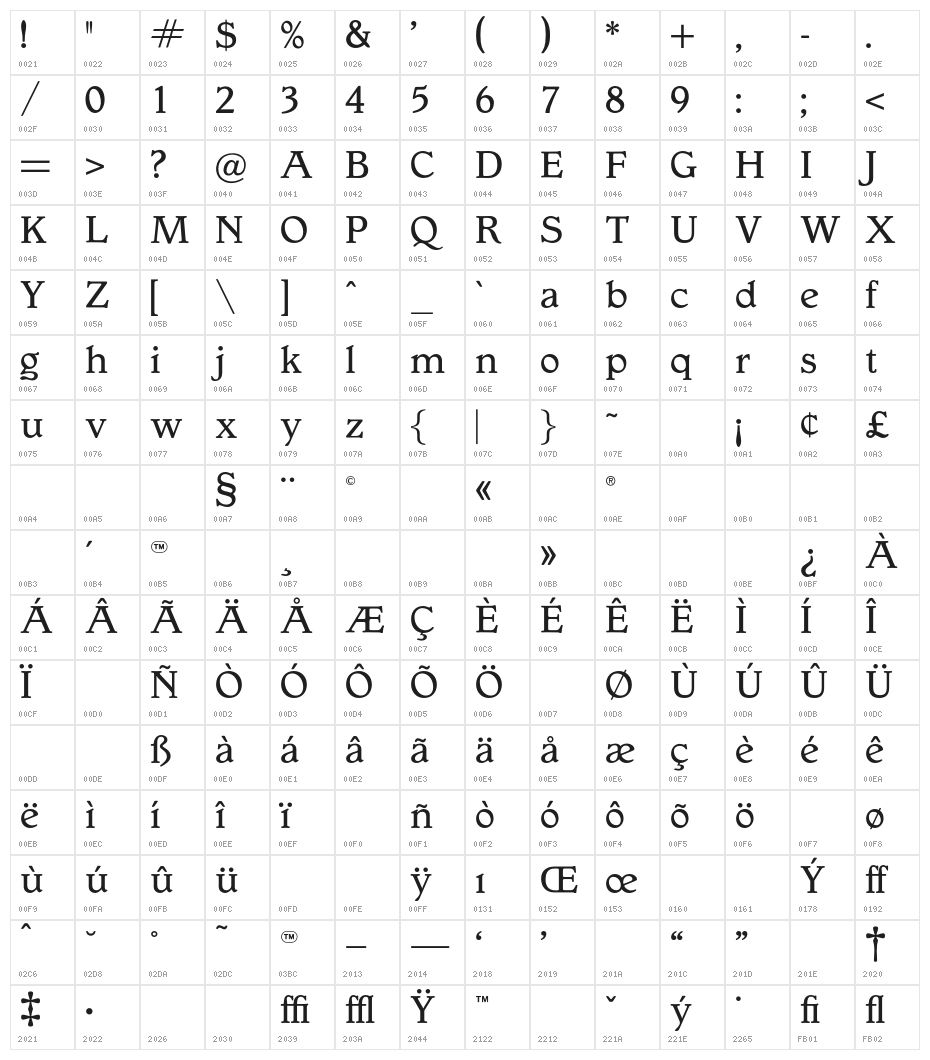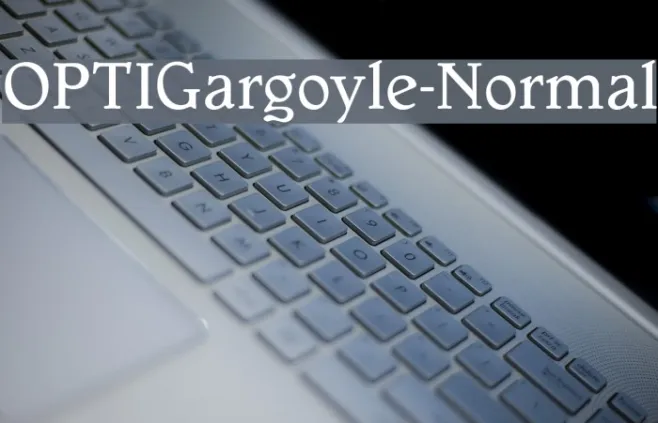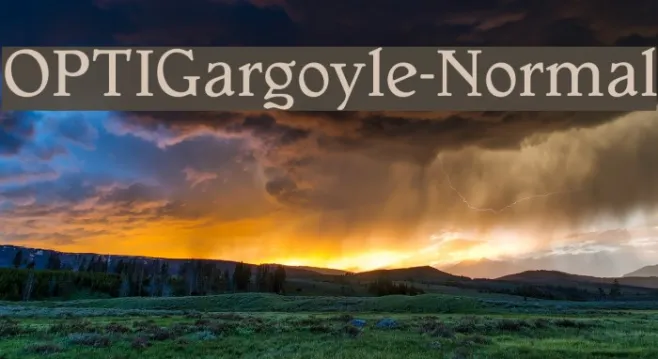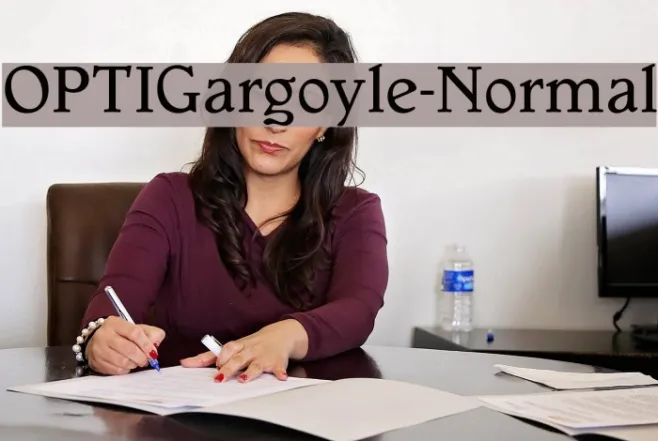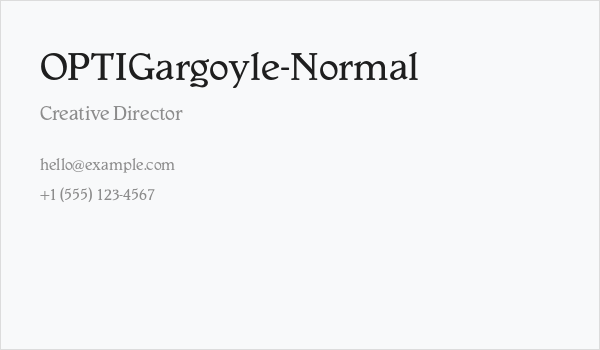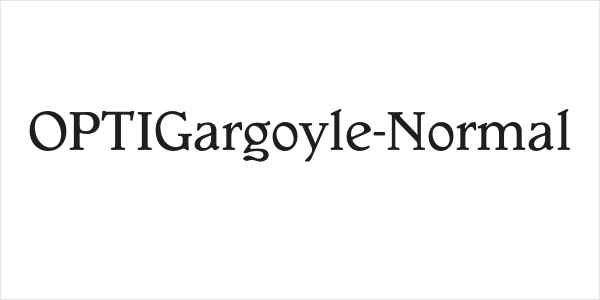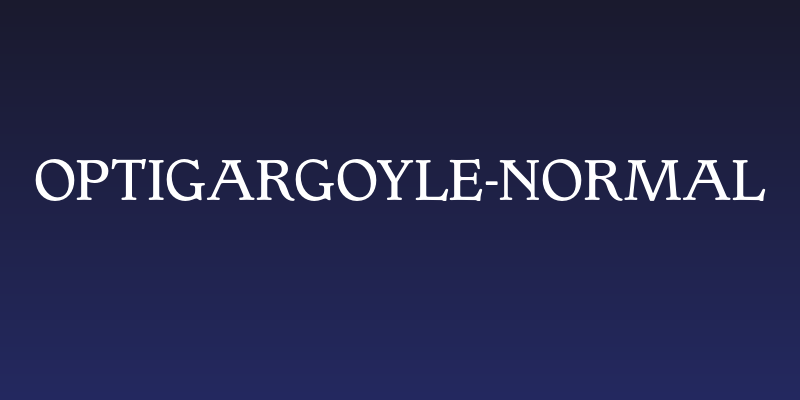
OPTIGargoyle-Normal Font
OPTIGargoyle-Normal Description
This font features a classic serif design with a strong presence and elegant curves. The uppercase letters are bold and commanding, while the lowercase letters maintain a consistent style with slightly rounded edges. The numerals are clear and distinct, making them easy to read. Special characters are well-integrated, maintaining the overall aesthetic. The font's structure is balanced, with a medium contrast in stroke thickness that adds to its readability and visual appeal. It is suitable for projects that require a traditional yet stylish look.
| Proposed Projects | Ideal for book covers, editorial design, branding, and formal invitations. |